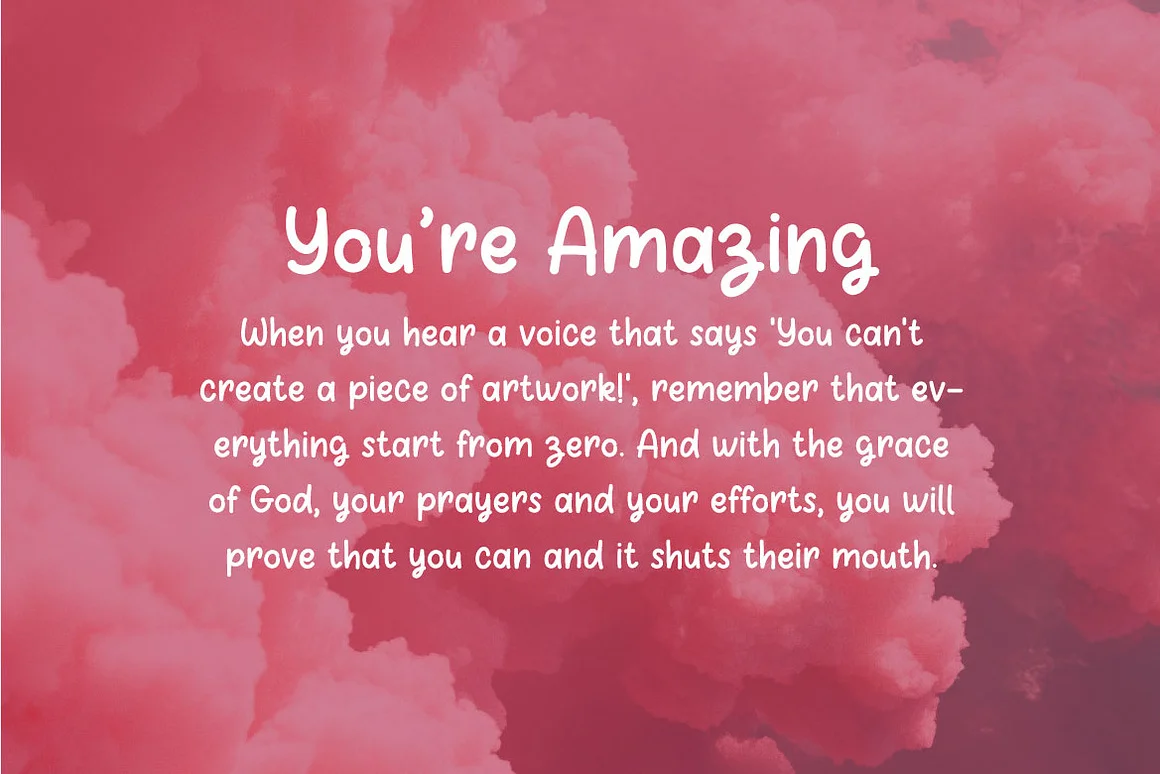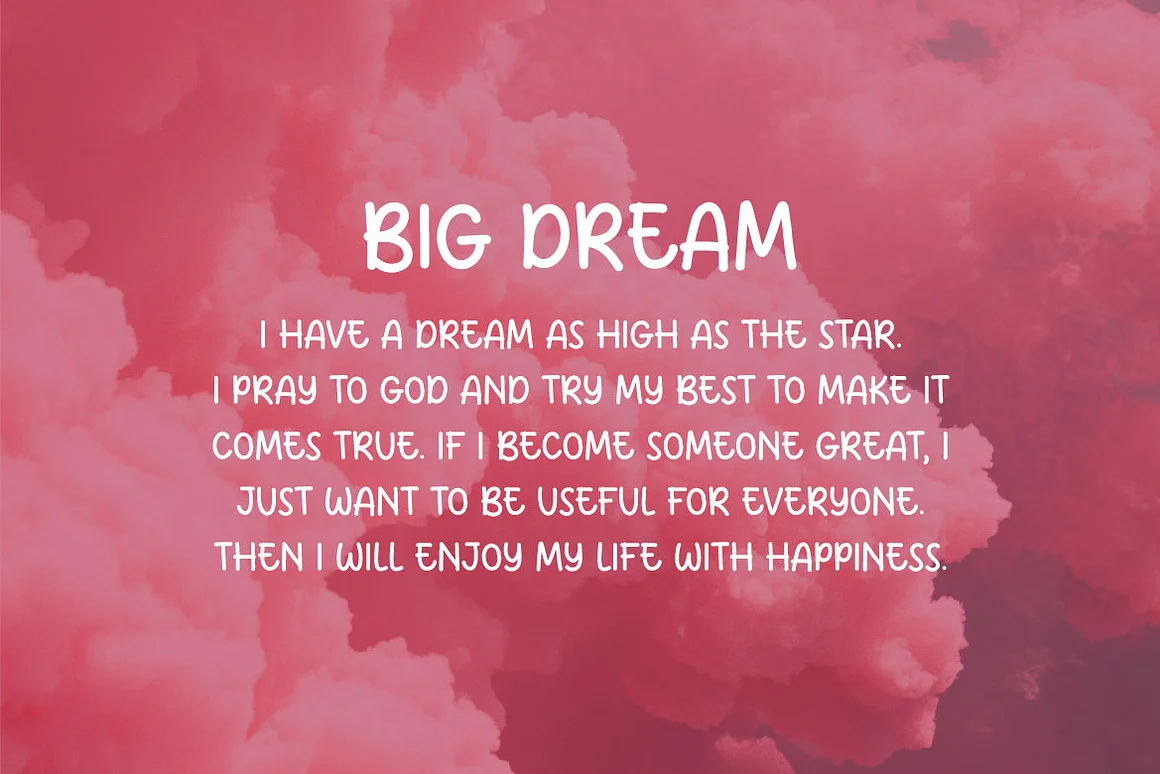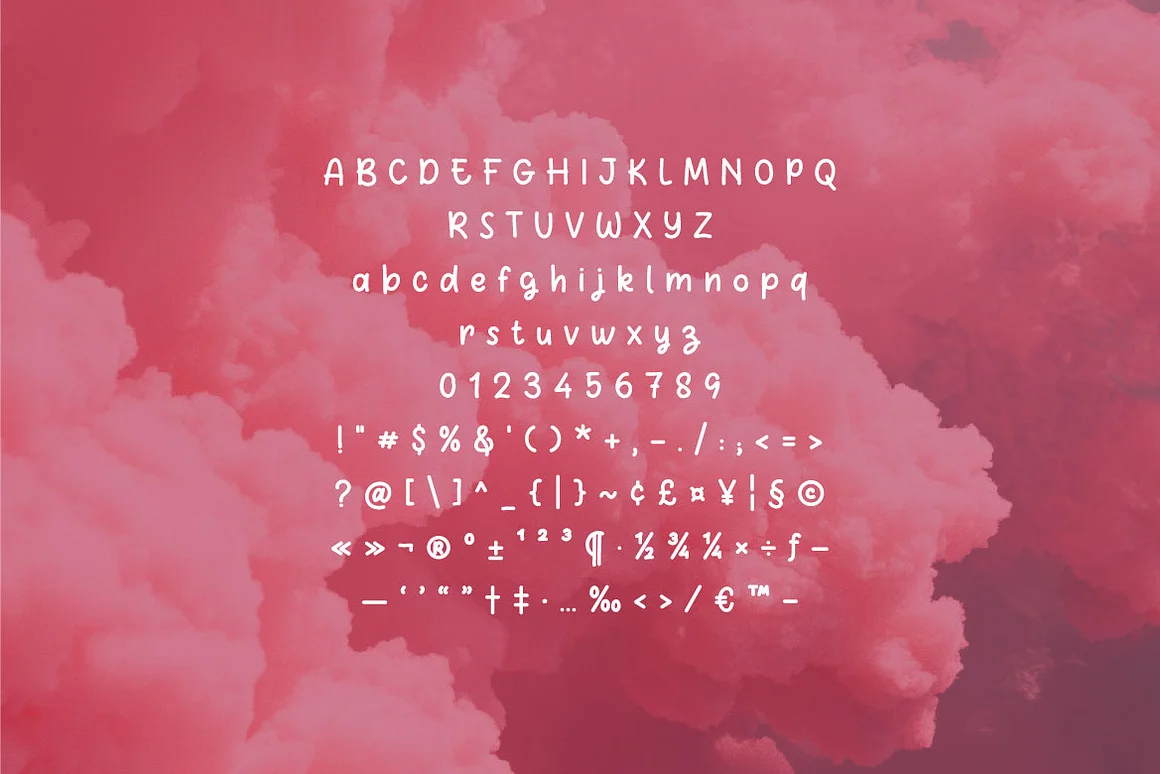
Lucky Ribs - Fun Simple Font
Lucky Ribs is a delightful and playful font designed to add a burst of fun to any project. With its simple, hand-drawn style, Lucky Ribs captures a youthful and cheerful vibe, perfect for creating eye-catching designs that stand out. Whether you're crafting playful posters, children's book covers, social media graphics, greeting cards, or branding projects, Lucky Ribs brings a touch of whimsy and joy to every piece. This font features a clean and easy-to-read design, with quirky characters that make it a versatile choice for both personal and professional use.